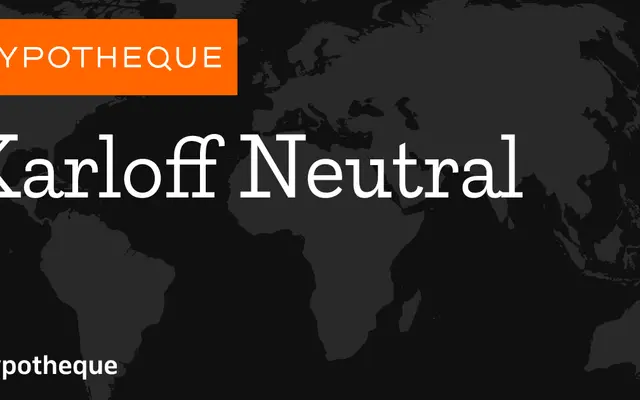
Karloff Neutral
Typotheque · Peter Biľak, Pieter van Rosmalen, Maria Doreuli · 2012
The middle member of a three-part system exploring contrast extremes, Karloff Neutral sits between the high-contrast Didone and the eccentric reverse-contrast Italian, arriving at a composed equilibrium between two irreconcilable extremes.
Designed by Peter Biľak and Pieter van Rosmalen with Cyrillic and Greek extensions by Maria Doreuli, Karloff Neutral is the restrained centre of the Karloff system, which spans Positive (Didone) and Negative (Italian reverse-contrast) variants. The Neutral cut comes in a single weight with italic and small caps, supported by a remarkably broad language roster covering Latin, Cyrillic and Greek. Its conceptual premise, resolving two historically opposed contrast models into one coherent form, makes it unusual among text serifs released in the 2010s.
Karloff Neutral occupies the midpoint between the high-contrast Didone and the reverse-contrast Italian styles, resulting in a typeface with moderate, balanced contrast that reads as a transitional serif freed from either extreme.